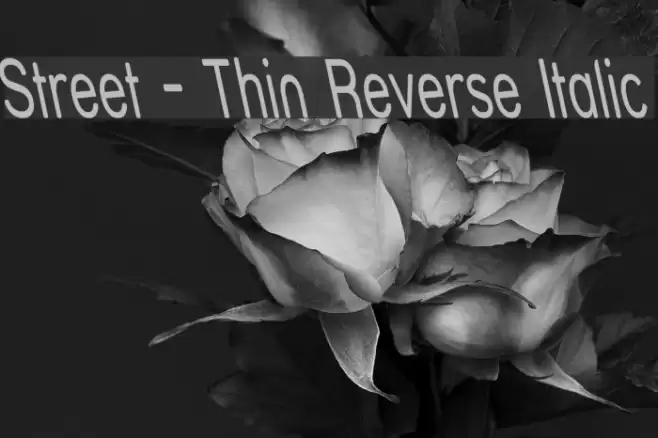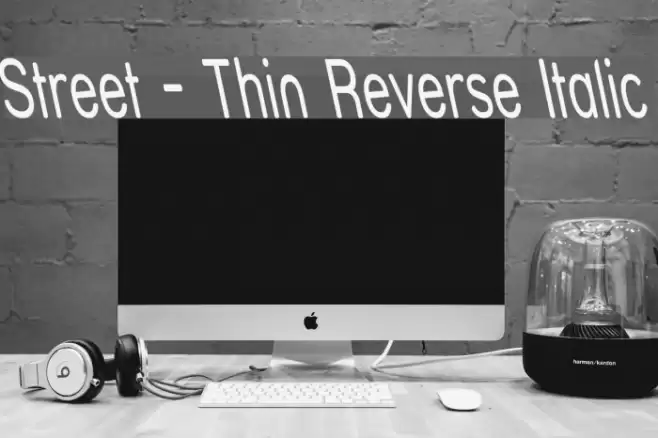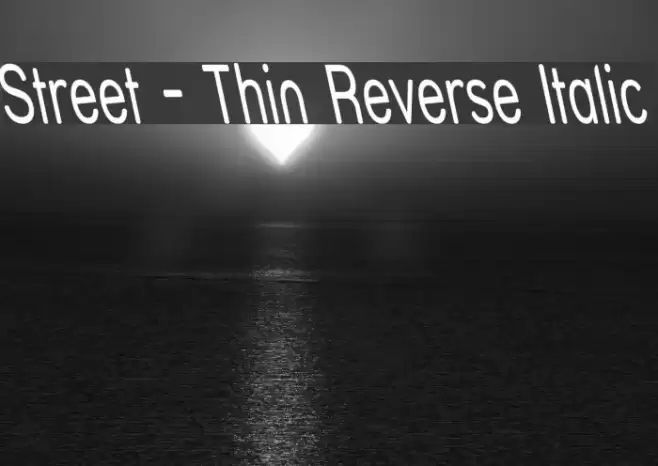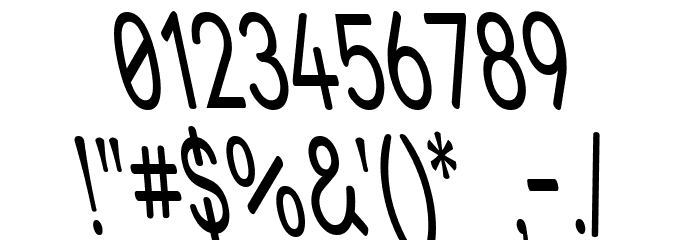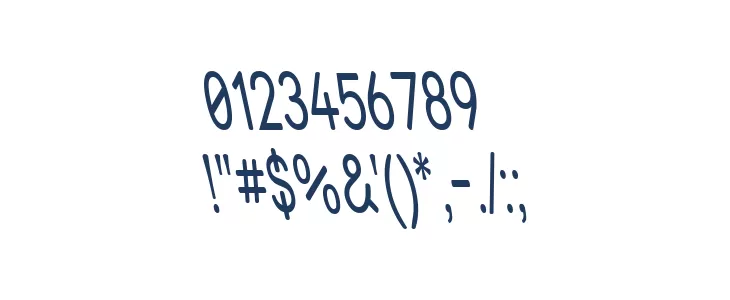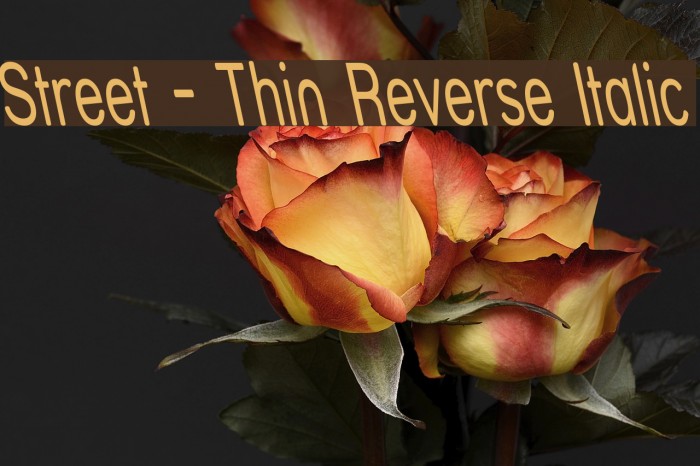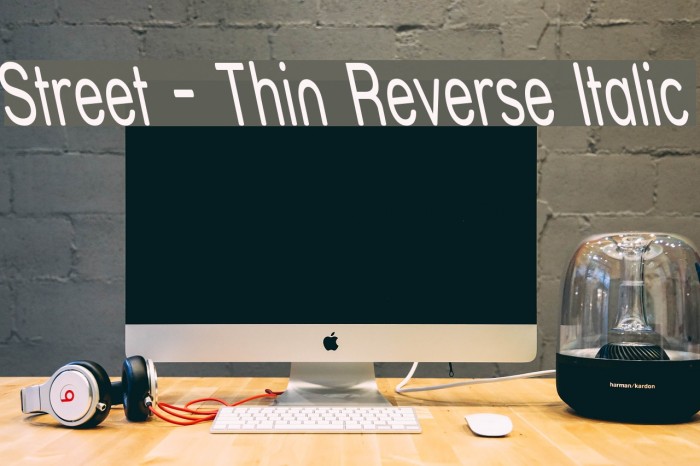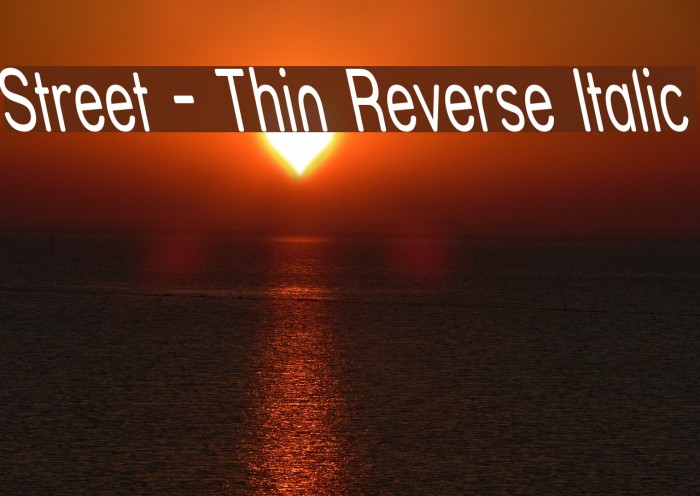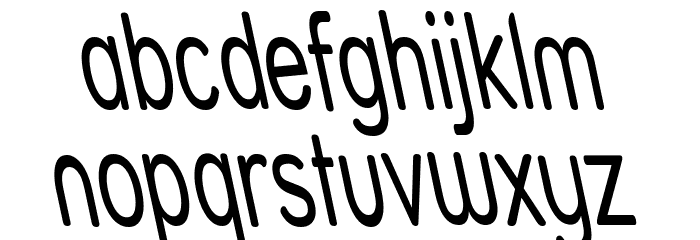
Street - Thin Reverse Italic Font
Street - Thin Reverse Italic Description
This font features a unique reverse italic style, where the slant is opposite to traditional italics, creating a distinctive look. The characters are thin and elongated, giving a sleek and modern appearance. The uppercase and lowercase letters maintain a consistent height, contributing to a uniform and clean aesthetic. The numerals and special characters are designed to match the overall style, ensuring cohesion across all elements. This font's thin strokes and reverse slant make it stand out, offering a fresh take on contemporary typography.
A thin, reverse italic font with a modern and sleek design from Sans Serif fonts.
- Proposed Projects: Ideal for modern branding, innovative product packaging, and contemporary web design.
- Use Case: Logos, Headlines